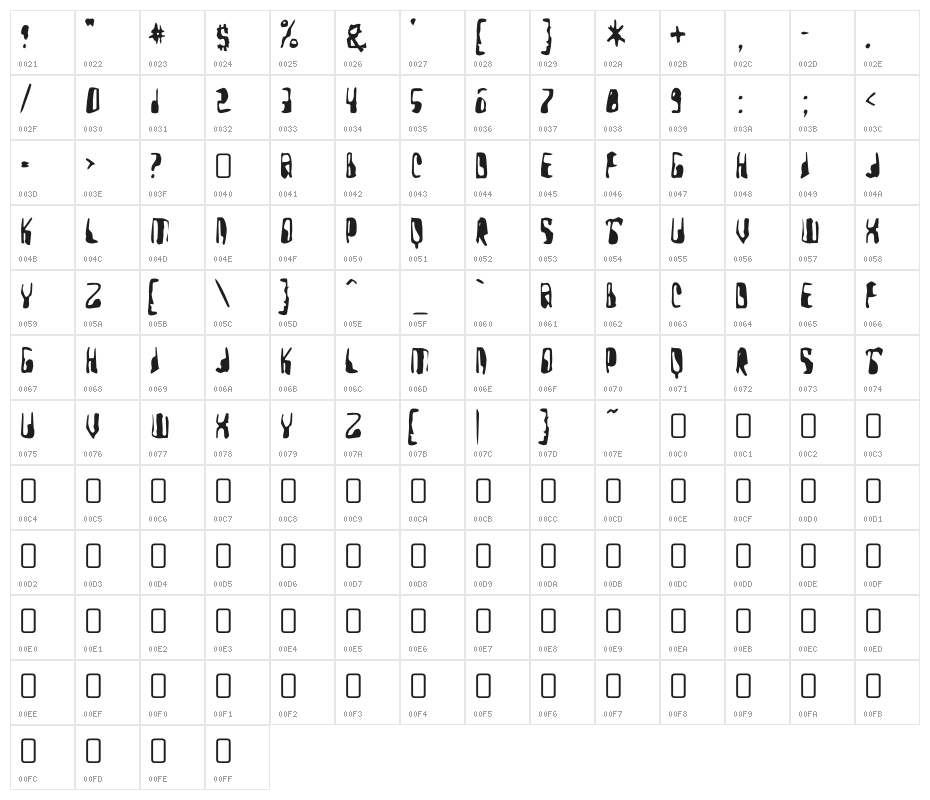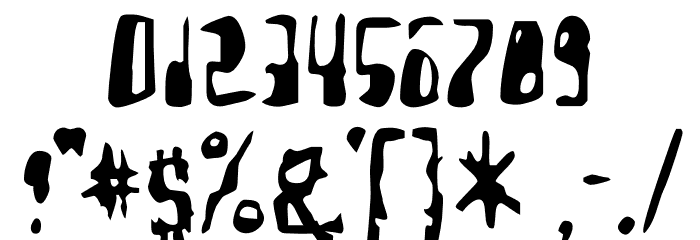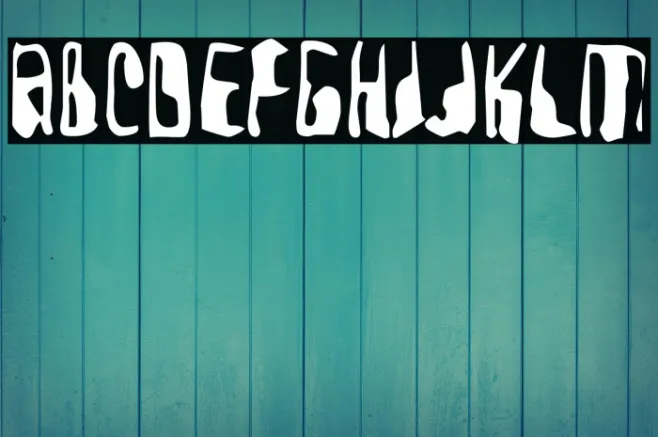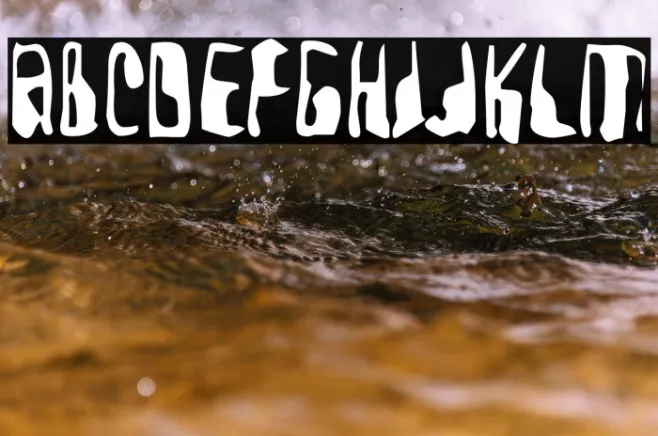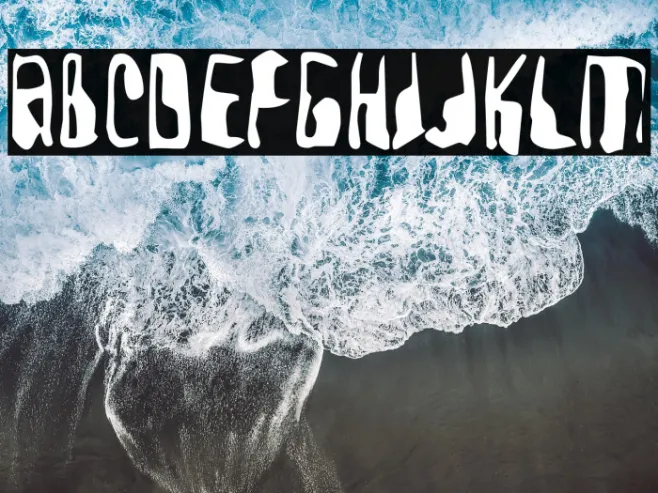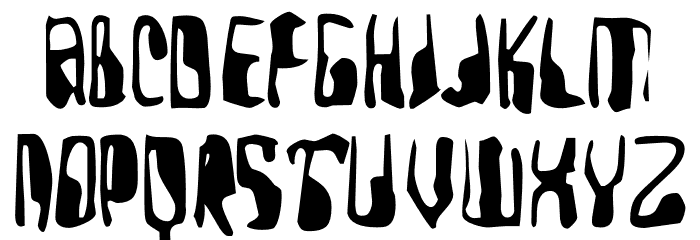
YellowPills-Regular Font
YellowPills-Regular Description
This font features a highly distinctive and irregular design, characterized by its bold and uneven strokes. Each letter appears to have a hand-drawn quality, with varying thickness and a slightly distorted appearance. The overall look is playful and artistic, making it stand out with its unique and quirky style. The uppercase and lowercase letters maintain a consistent theme, while the numbers and special characters follow the same unconventional design. This font is perfect for projects that require a bold statement and a creative touch.
| Overall Style | Artistic |
| Proposed Projects | Ideal for artistic posters, album covers, creative branding, and unique packaging designs. |